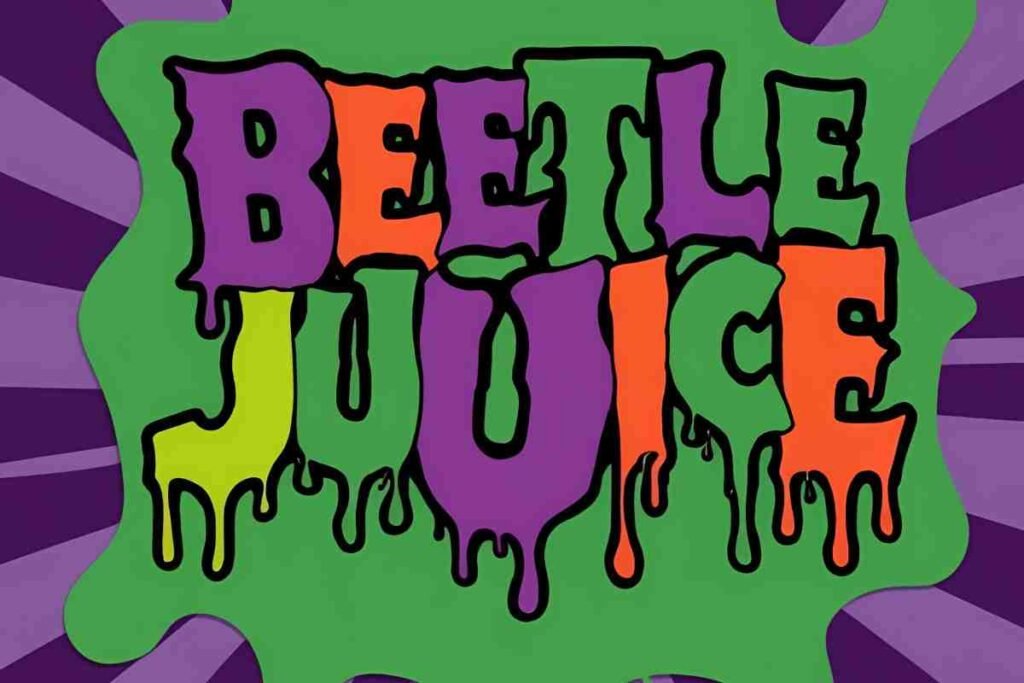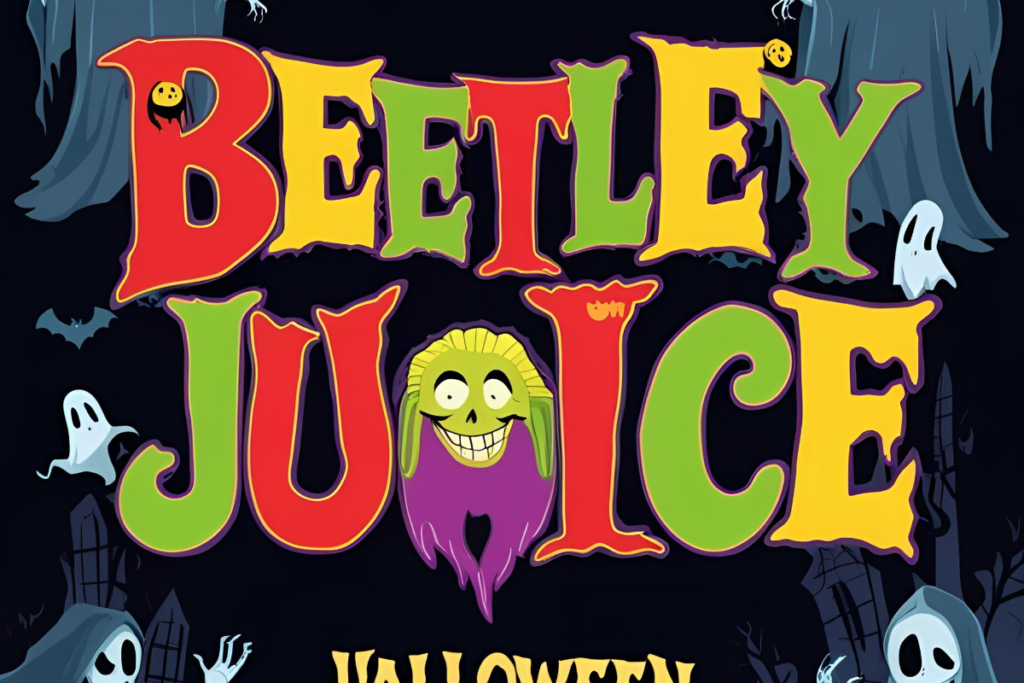
If you’re a fan of Tim Burton’s iconic Beetlejuice movie or just love spooky, gothic typography, the Beetlejuice font is the perfect way to add some eerie flair to your designs. Inspired by the film’s quirky and macabre aesthetic, this font brings a sense of playful horror to any project.
Whether you’re creating a Halloween invitation, a spooky-themed poster, or just want to capture that signature Beetlejuice vibe, this guide will walk you through everything you need to know.
What is the Beetlejuice Font?
If you’re a fan of Tim Burton’s iconic 1988 film Beetlejuice, you’ve probably noticed the distinctive and eerie typography that graces the movie’s title. The Beetlejuice font is more than just a typeface; it’s an integral part of the film’s visual identity.
Known for its quirky, distorted, and almost chaotic design, the font perfectly mirrors the dark yet whimsical aesthetic that Burton is famous for. Featuring irregular, hand-drawn strokes, sharp angles, and uneven spacing, the font creates an unsettling yet playful feeling—much like the film itself.
Inspired by the bizarre and supernatural world of Beetlejuice, this typeface evokes mystery, horror, and a touch of the absurd. Its jagged lines and bold outlines give off a ghostly, almost hypnotic vibe that immerses viewers into the film’s haunting atmosphere. Whether you’re working on a Halloween-themed design, horror branding, or a tribute to the cult classic, the Beetlejuice font effortlessly brings that signature, eerie tone to any project.
With its unique blend of Gothic elements and cartoonish flair, it’s no wonder the font has become a go-to choice for everything from spooky graphics to spooky event invites. Let’s explore how this unsettling typeface can add that perfect touch of spooky elegance to your creative designs.
Beetlejuice Font Style and Characteristics
The Beetlejuice font style is often associated with horror movie fonts, featuring irregular, hand-drawn strokes that give it a haunted and mysterious look. Inspired by vintage Halloween font designs, the font embodies the essence of spooky title design with a blend of script and serif gothic styles.
Key Features of Beetlejuice Typography
This eerie typeface has a ghostly charm that aligns with the Tim Burton aesthetic, making it perfect for horror-themed designs and Halloween decorations. The uneven, whimsical letters add an authentic touch to projects that require a haunted and classic horror movie font appearance.
The font’s jagged edges and unpredictable letter formations make it look like something straight out of a supernatural realm, which is why it continues to be a popular choice for horror-themed content.
These recreations often feature the same jagged, hand-drawn strokes and irregular spacing that make the original font so distinctive. While these versions may not be an exact replica, they perfectly evoke the film’s haunting yet playful vibe.
Many of these fonts are designed with the same Gothic flair and quirky, offbeat details, allowing you to achieve that Beetlejuice aesthetic for your projects. From bold outlines to irregular letterforms, these downloadable versions let you bring a little bit of Burton’s macabre world to your designs.
Popular font resources like FontBolt, DaFont, and Google Fonts are excellent places to find free and alternative Gothic fonts that closely resemble the iconic Beetlejuice typography. These platforms offer a wide variety of spooky, bold, and distorted typefaces that capture the same eerie charm and whimsical vibe seen in the film’s design.
Whether you’re working on digital projects like websites, social media posts, or print designs such as posters, flyers, and event invitations, these fonts can bring that unmistakable Burton-esque aesthetic to your work.
These Gothic-inspired fonts often feature jagged edges, exaggerated strokes, and uneven letterforms, making them perfect substitutes for the Beetlejuice font. Many of these free fonts offer a similar quirky, supernatural vibe, allowing you to mimic the film’s haunting atmosphere in your own creative projects.
What are some good alternatives to the Beetlejuice font?
Try fonts like Caslon Antique, Dark Alley, or Ghoulish Fright for a similar haunted typography effect.
How can I add a unique touch to my Beetlejuice font designs?
To give your Beetlejuice font designs a unique touch, consider adding effects like texture overlays, shadowing, or a distressed look.